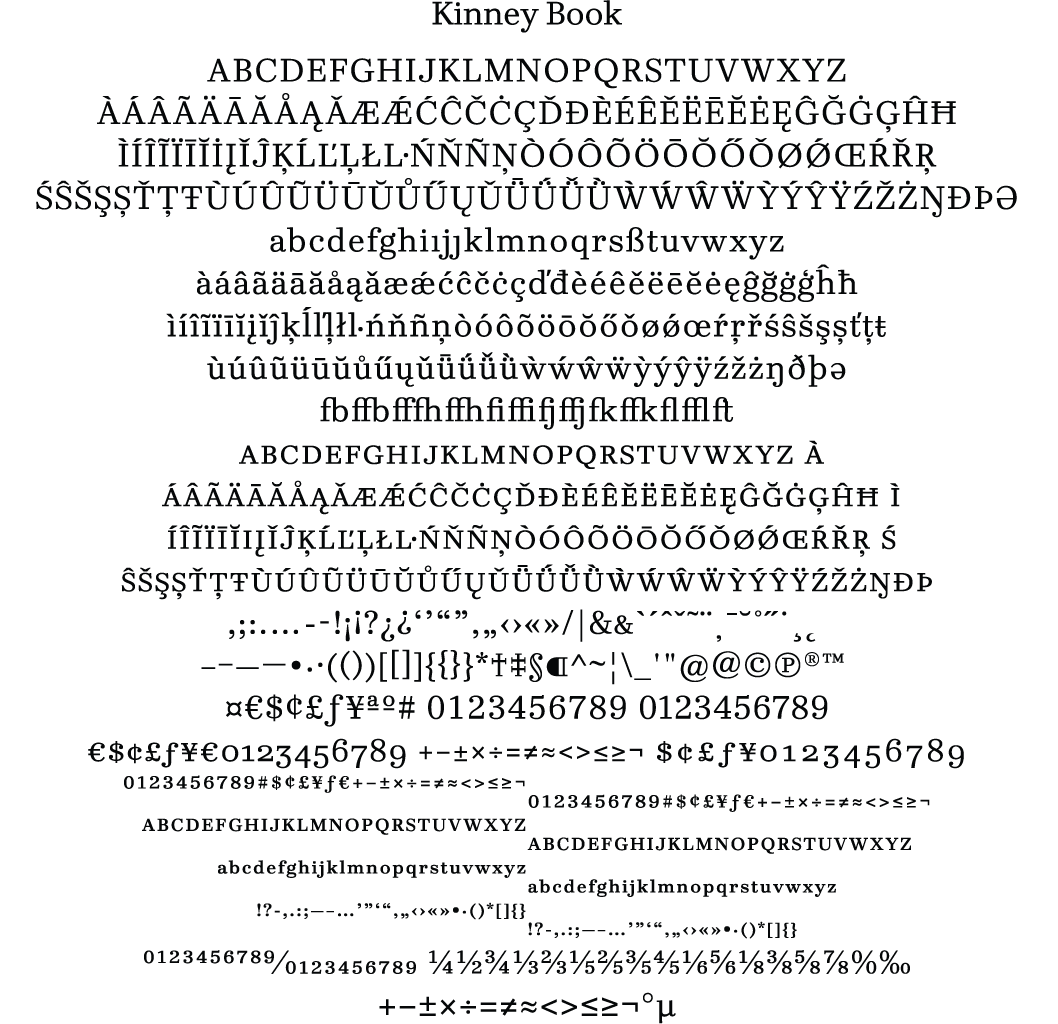
Kinney®
All the fonts contain small caps, ligatures and lots of different figure styles. All of those OpenType features you’ve come to expect from our fonts.